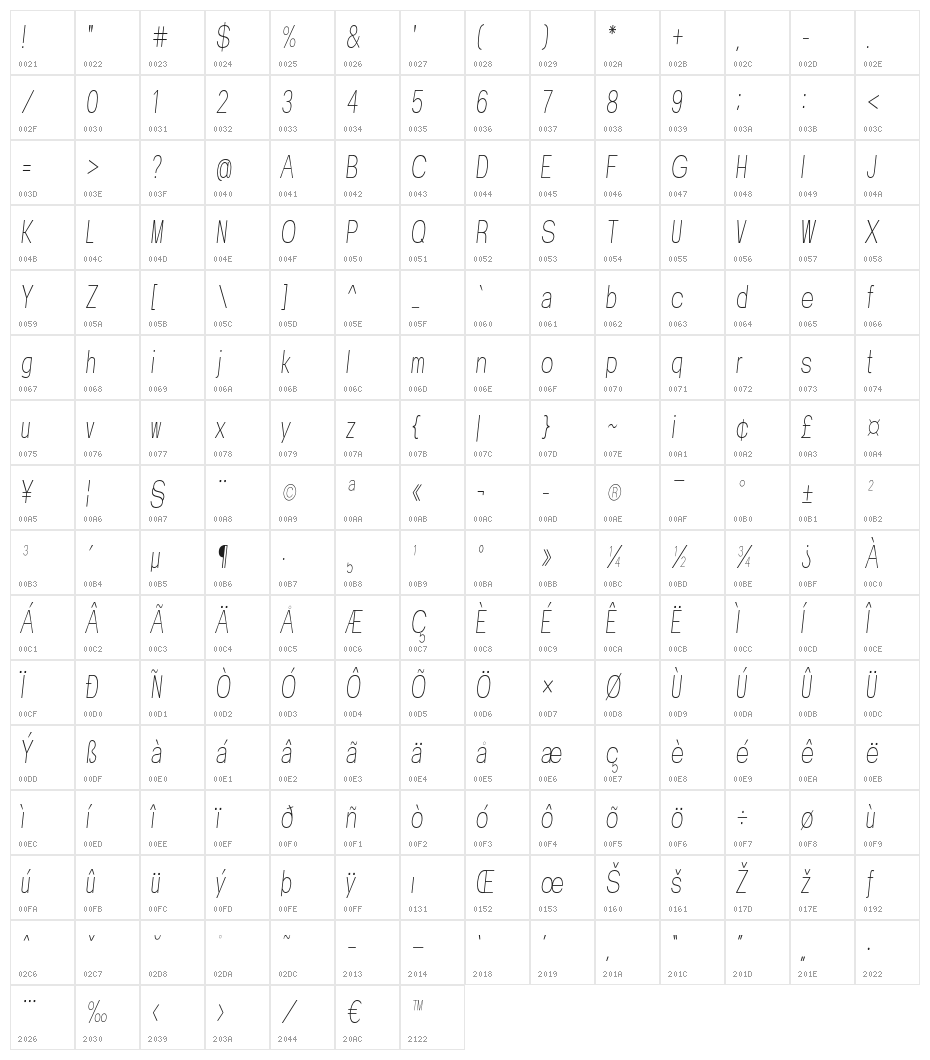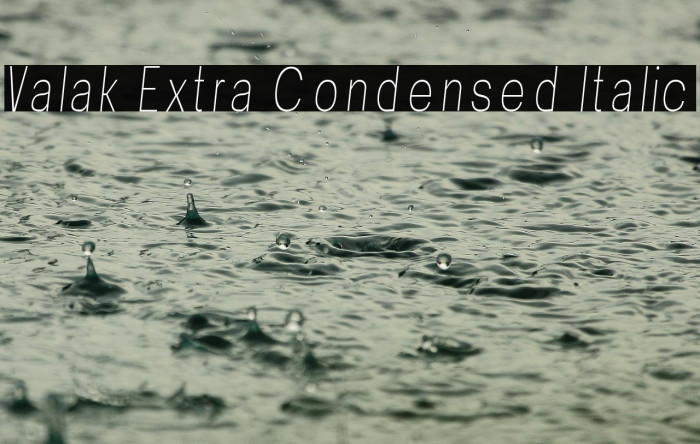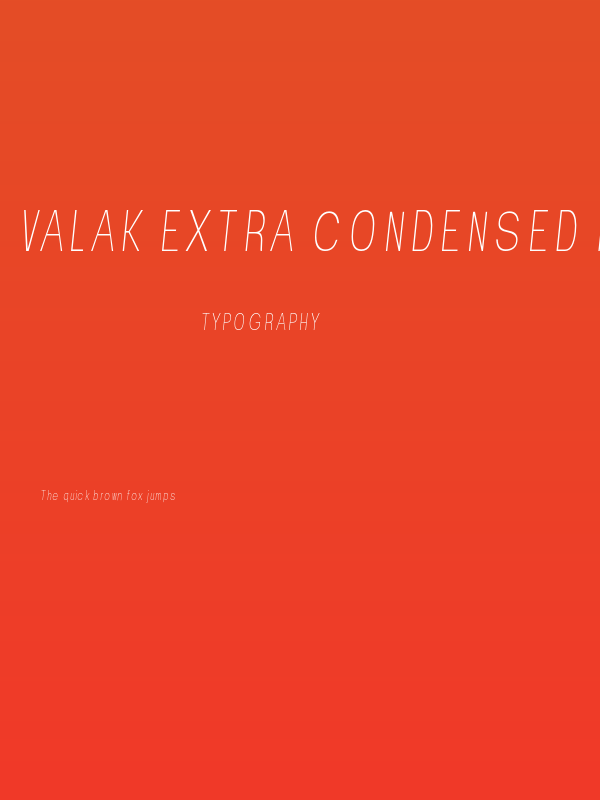
Valak Extra Condensed Italic Font
Valak Extra Condensed Italic Description
This font features a sleek, modern design with an extra-condensed width, giving it a streamlined and sophisticated appearance. The italic style adds a dynamic and elegant touch, making it suitable for projects that require a contemporary and stylish look. The characters are well-defined with a consistent stroke width, providing a clean and professional aesthetic. The font includes a full set of uppercase and lowercase letters, numbers, and a variety of special characters, ensuring versatility for different design needs.
Proposed ProjectsIdeal for fashion magazines, modern branding, elegant invitations, and sleek website headers.